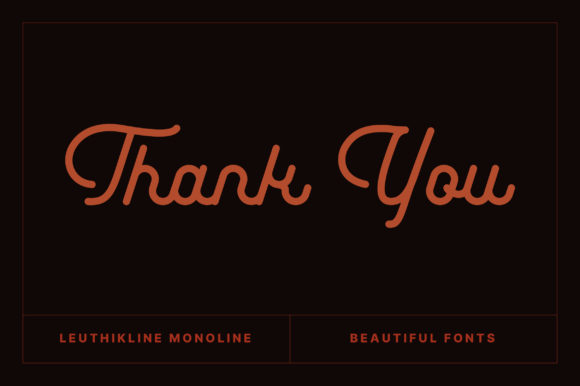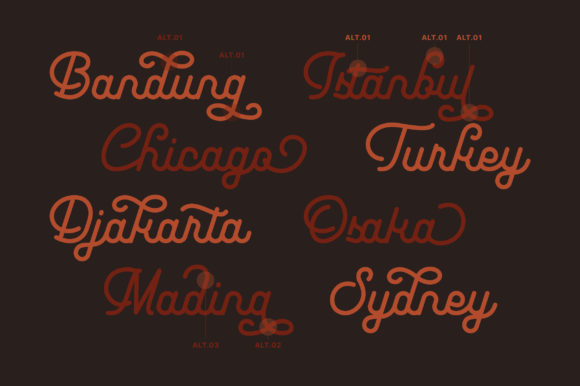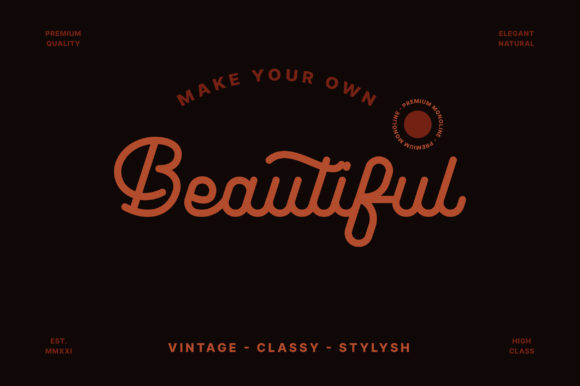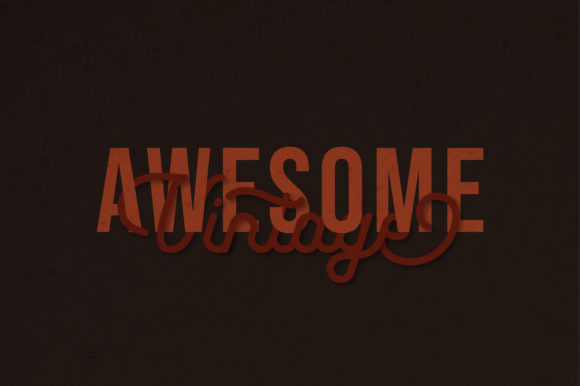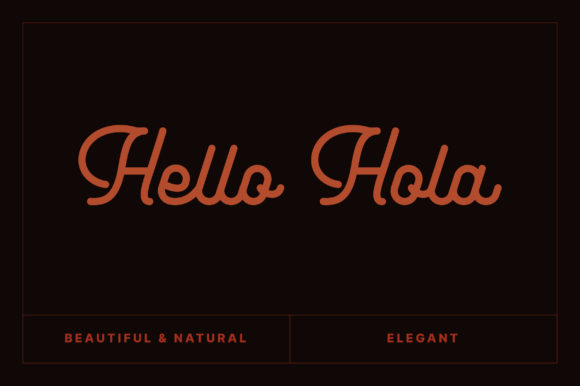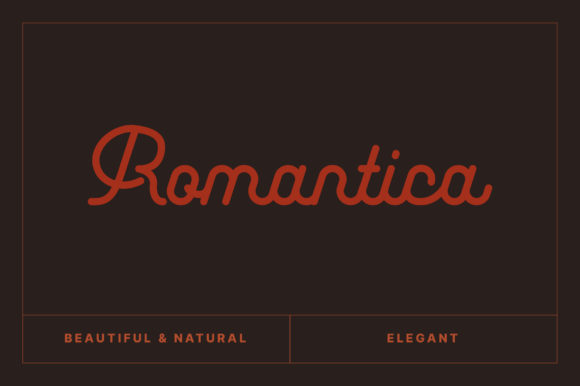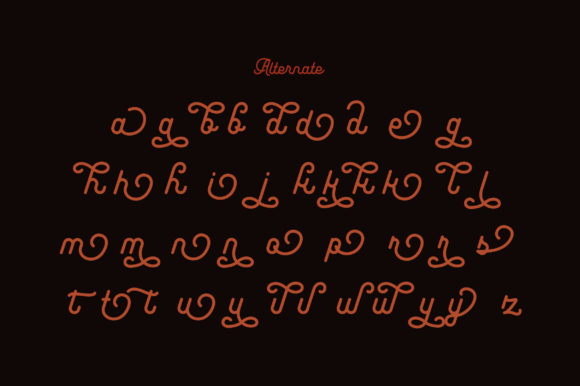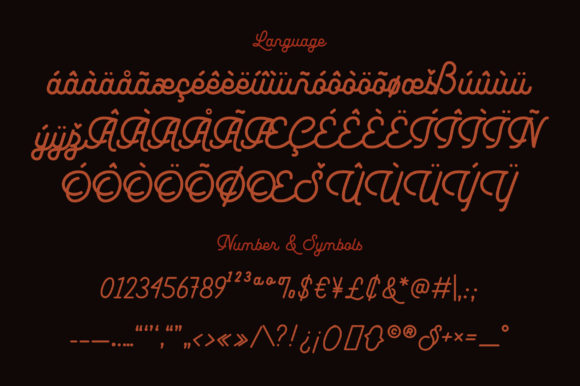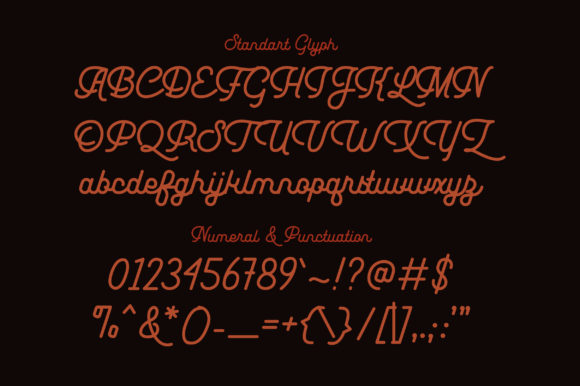
Leuthikline Font
About Leuthikline Font
Leuthikline is a vintage styled and beautiful script font. This font is PUA encoded which means you can access all of the glyphs and swashes with ease!